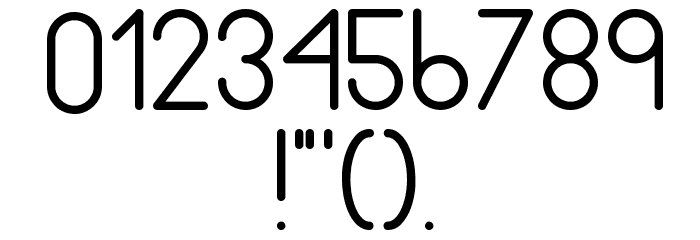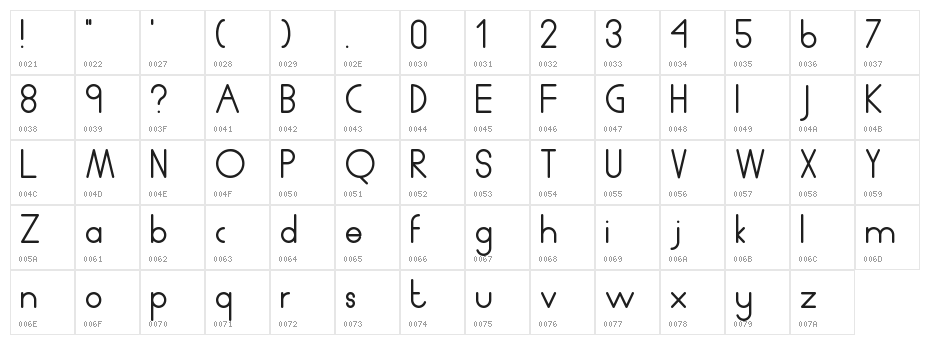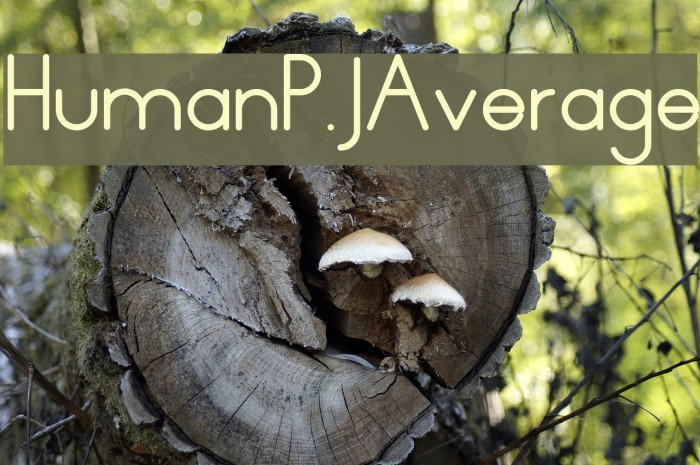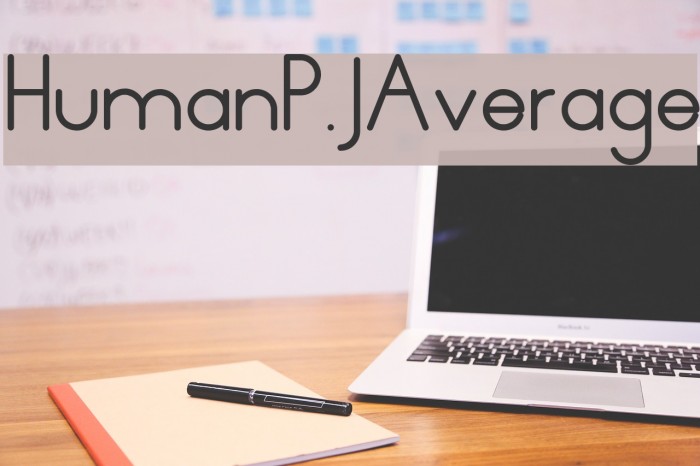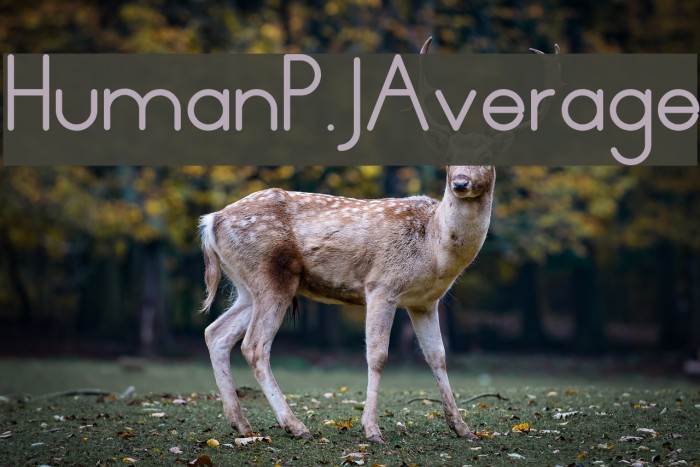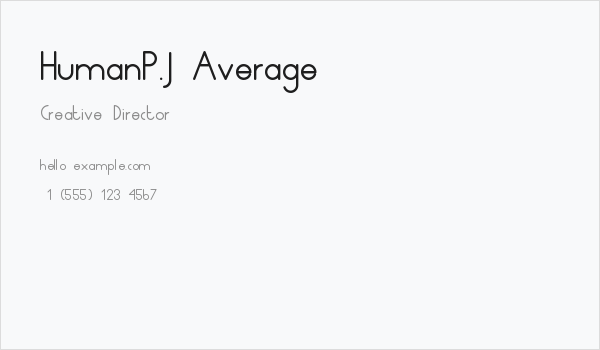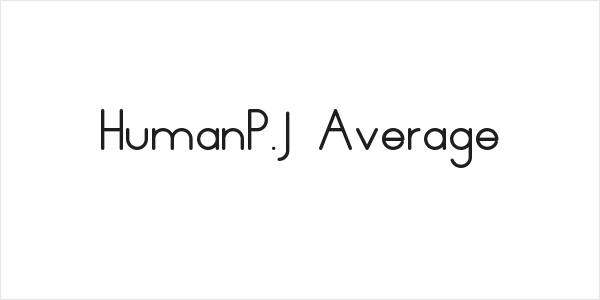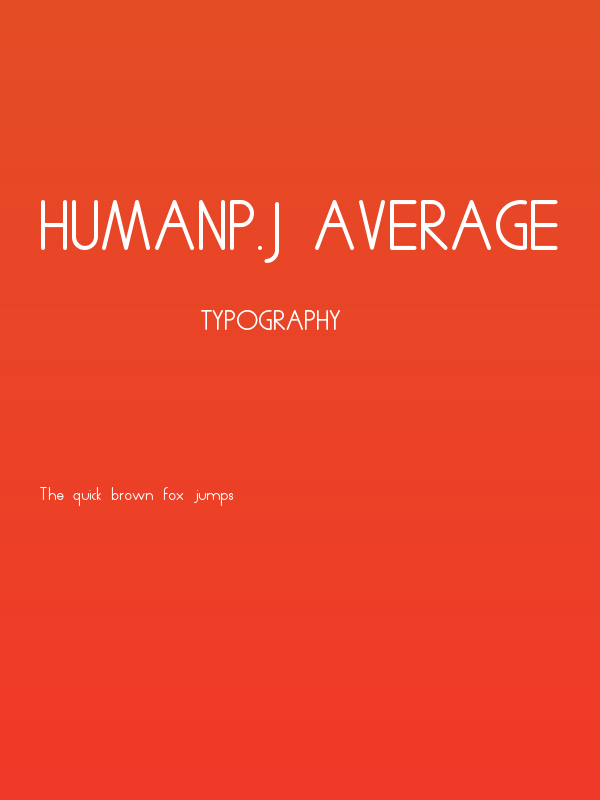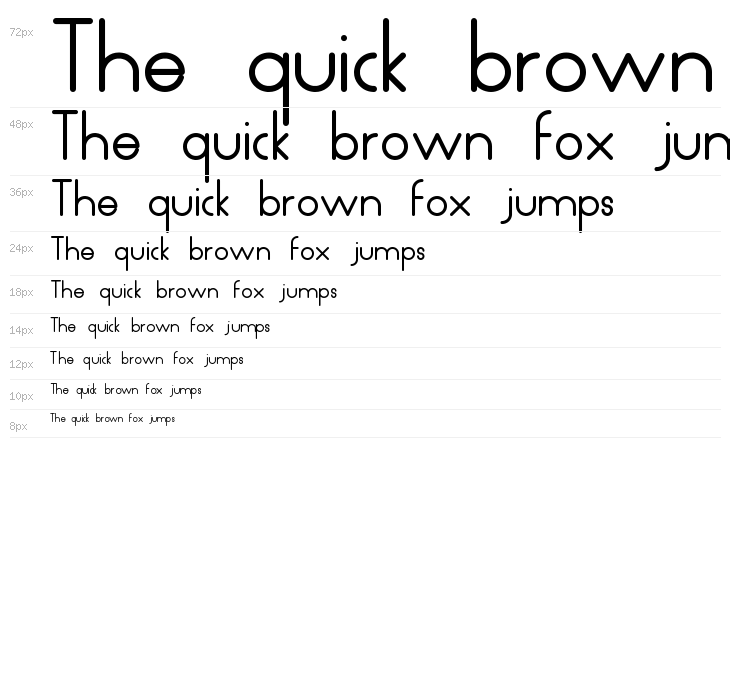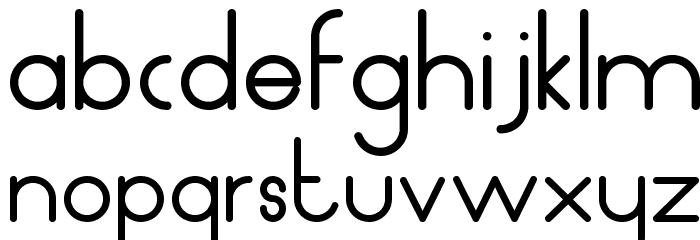
HumanP.J-Average Font
HumanP.J-Average Description
This font features a clean and modern sans-serif style with rounded edges, giving it a friendly and approachable appearance. The characters are evenly spaced, contributing to its readability. The uppercase letters are slightly taller than the lowercase, maintaining a consistent line weight throughout. The numerals are clear and distinct, matching the overall style of the alphabet. Special characters are simple and unobtrusive, fitting seamlessly with the rest of the font. This font's simplicity and clarity make it versatile for various design applications.
| Proposed Projects | Ideal for branding, web design, user interfaces, and educational materials. |